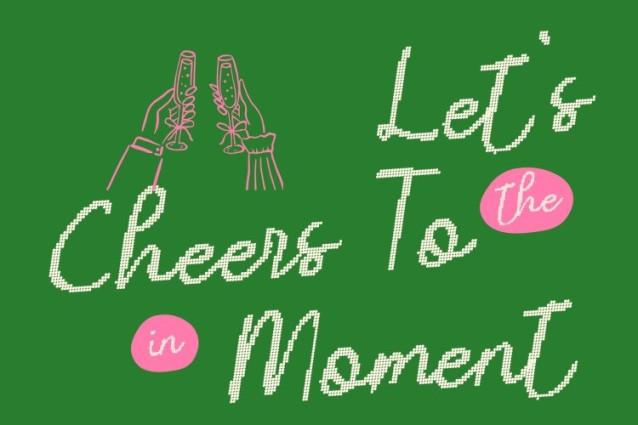
CS Amilia Disco Font
CS Amilia Disco Font This is an artistic handwritten script font defined by fluid strokes, expressive curves, and a lively sense of movement. Inspired by natural handwriting and elevated with disco-style glamour, each letter flows effortlessly, capturing the energy of music, motion, and celebration. The result is a script that feels warm, stylish, and radiant like handwritten lettering glowing under party lights.
Elegant Swashes with Festive Sparkle
Refined swashes and decorative flourishes give this font its distinctive charm. These elegant details add rhythm and visual excitement, creating a sense of motion that echoes dancing lines and celebratory vibes. The flourishes enhance headlines, names, and accents with a glamorous touch, making every word feel expressive and unforgettable.
Perfect for Branding, Logos, and Statement Signatures
This font shines in branding projects that need personality with polish. Its handwritten elegance combined with festive energy makes it ideal for beauty brands, fashion labels, boutique logos, lifestyle products, and creative identities. The script feels personal yet luxurious, turning signatures and brand marks into confident, stylish statements.
Ideal for Invitations, Events, and Party-Ready Designs
Designed to celebrate moments, this font is perfect for invitations, wedding stationery, event posters, party flyers, social media graphics, and creative layouts. Its romantic flow paired with disco-inspired flair brings emotion, glamour, and joyful energy making every design feel special, expressive, and ready to celebrate.